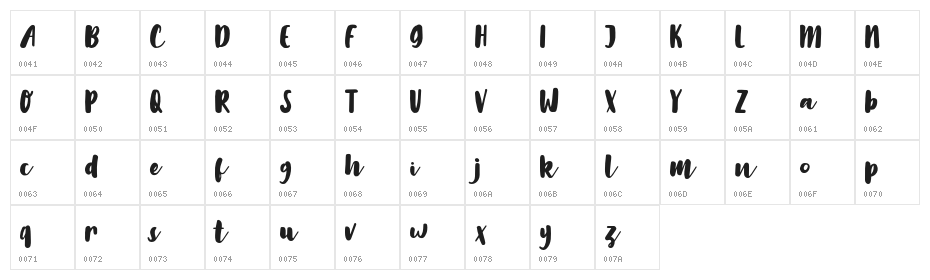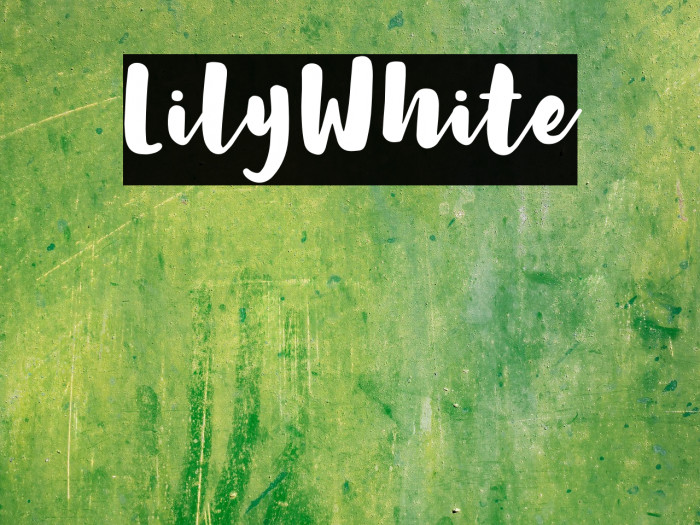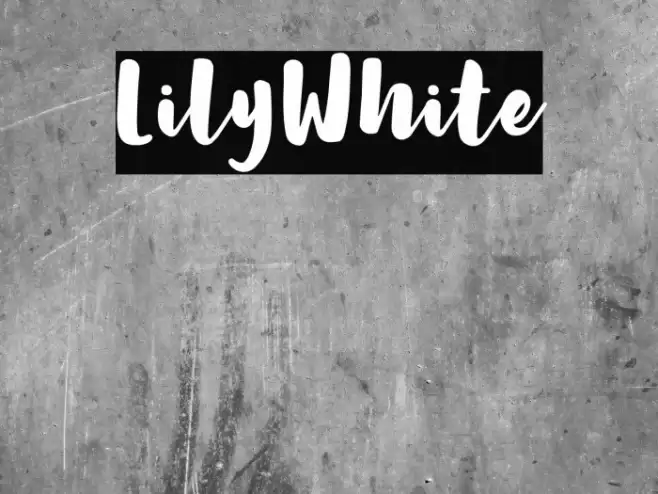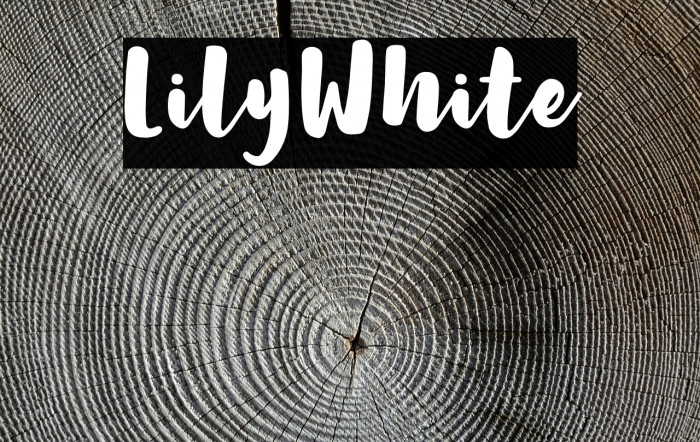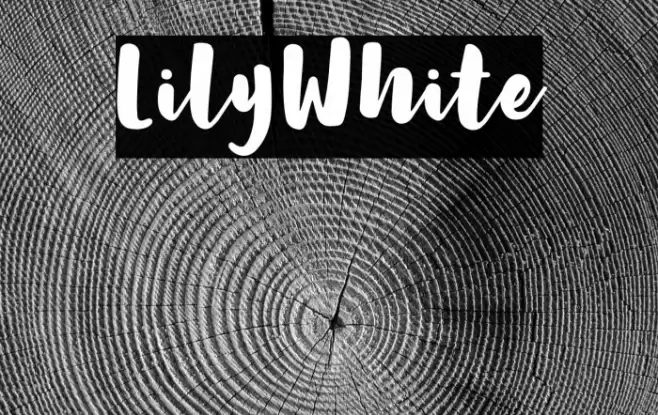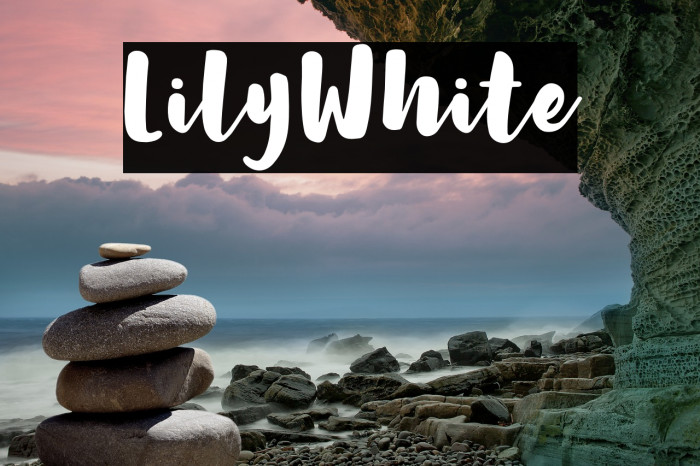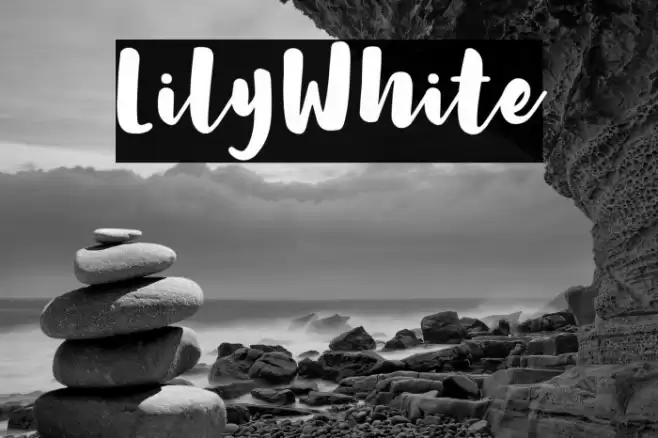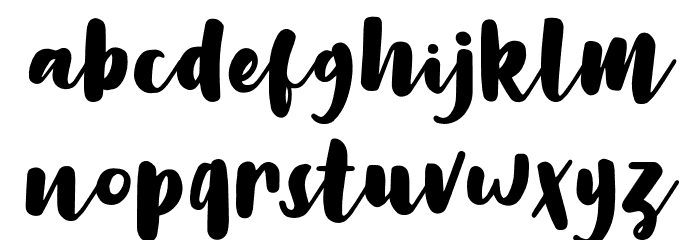
LilyWhite Font
LilyWhite Description
This font features a bold and expressive handwritten style, characterized by its thick strokes and fluid curves. The letters are crafted with a playful yet sophisticated flair, making them stand out with a distinctive personality. The uppercase and lowercase letters maintain a consistent weight, providing a harmonious balance across the alphabet. The font's design is both modern and approachable, with a touch of artistic flair that adds a unique charm. Its bold appearance ensures excellent readability while maintaining an elegant and stylish look.